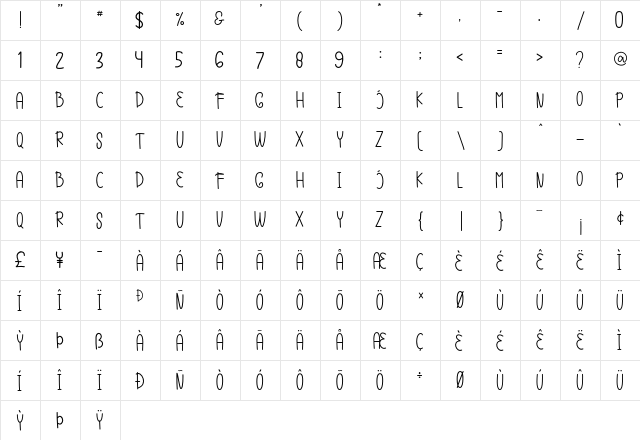
Daily Rainy Regular
Design Context for Daily Rainy Typeface
Daily Rainy is a composed and adaptable typeface that performs quietly and consistently across a wide range of design contexts.